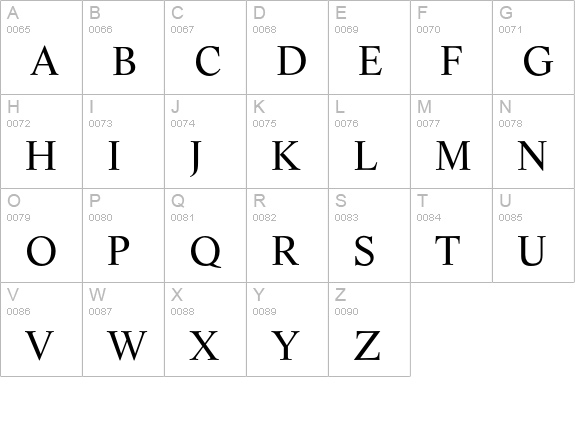
12 Life** Roman 05150 Font Details
The 12 Life** Roman 05150 font is a classic and elegant typeface that exudes sophistication and style. With its clean lines and timeless design, this font is perfect for a wide range of projects, from formal invitations to professional documents. Its versatile nature allows it to be used in both print and digital formats, making it a valuable addition to any designer's toolkit. One of the best things about the 12 Life** Roman 05150 font is that it is available for free download at FontsMarket.com. This means that you can easily access this high-quality font without having to break the bank. Whether you are a seasoned designer looking to refresh your font collection or a novice designer just starting out, this font is a fantastic choice that won't cost you a penny. So why wait? Enhance your projects with the timeless elegance of the 12 Life** Roman 05150 font today. Download it for free at FontsMarket.com and elevate your designs to the next level.